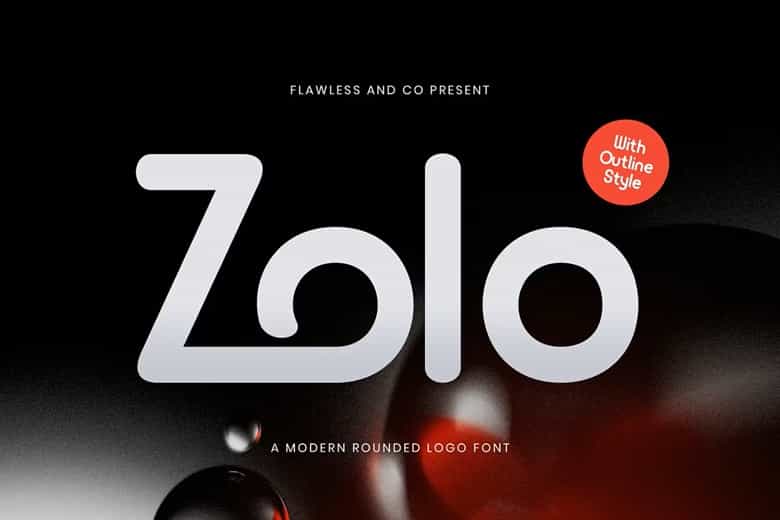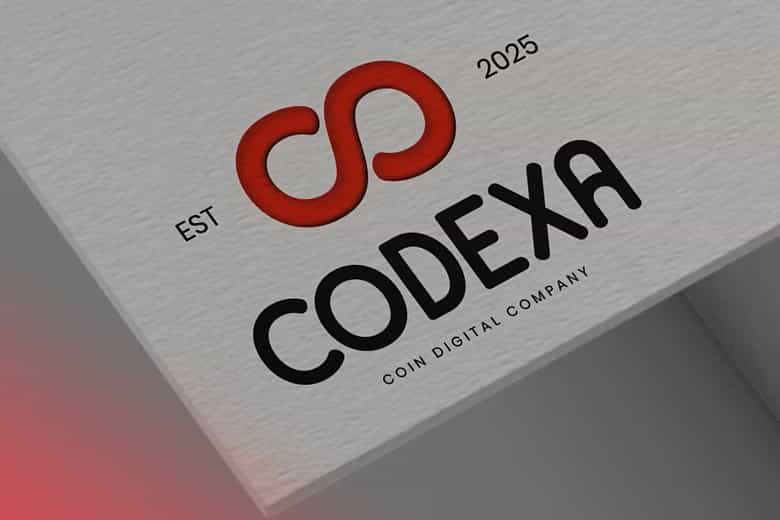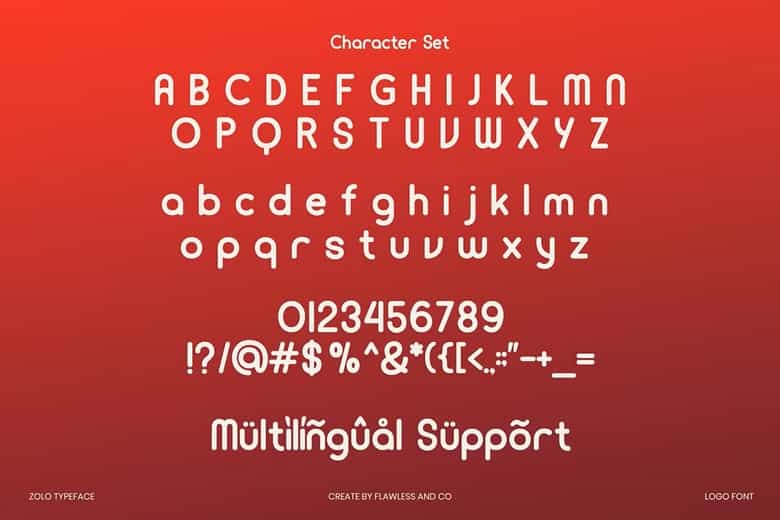
ZOLO is a modern and minimal rounded sans serif logo font that will help your brand shine. ZOLO has a clean and rounded structure and an elegant and approachable presence in logos, technology items, branding resources, and presentation designs.